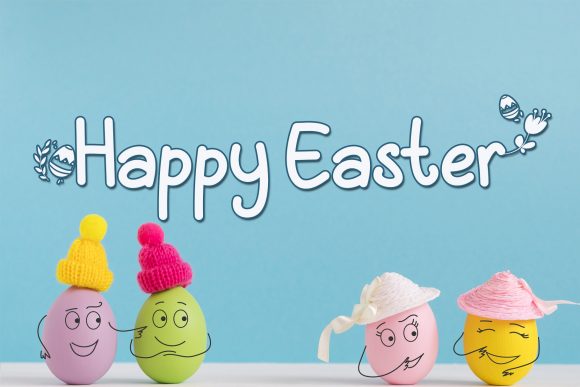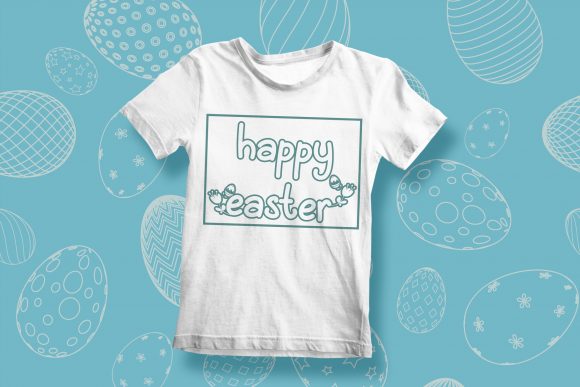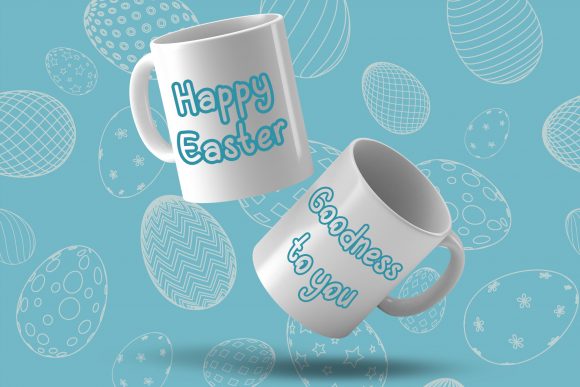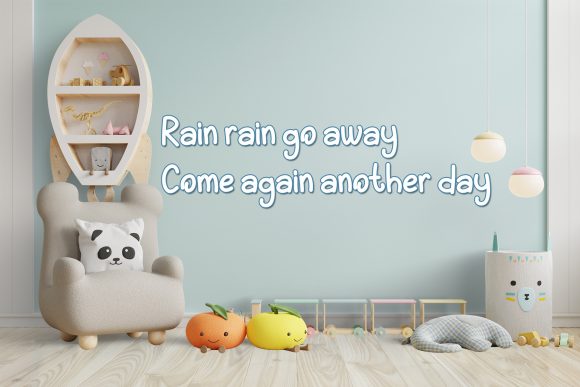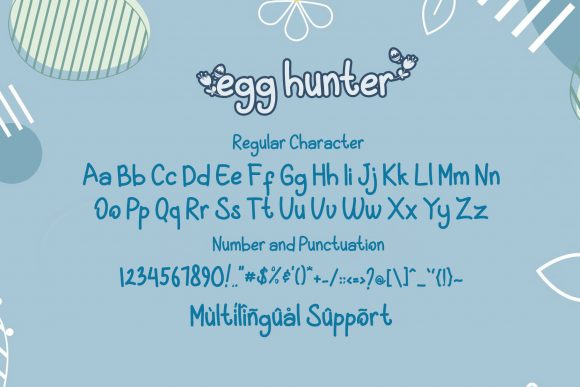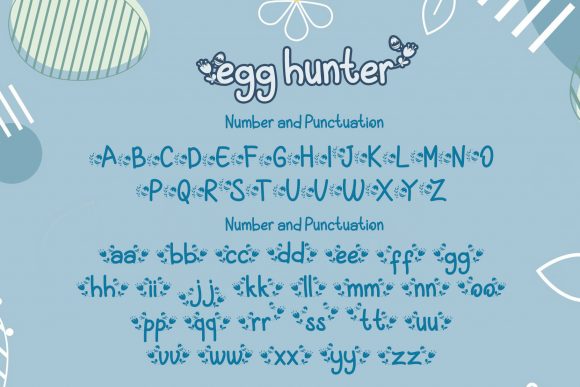
Egg Hunter Font: The Perfect Addition to Your Easter-Themed Designs
Are you a designer or crafter looking for a unique and cheerful font to add to your Easter-themed designs? Look no further than the Egg Hunter Font! This delightful display font is perfect for creating eye-catching Easter designs, cards, branding, stationery, blog designs, custom art, and more.
What Makes Egg Hunter Font So Special?
Egg Hunter Font is a one-of-a-kind font that features unique ornaments, making it stand out from other fonts. Its cheerful and playful design is sure to bring a smile to anyone’s face, making it perfect for Easter-themed designs. The font is also PUA encoded, which means you can easily access all of the glyphs and swashes, giving you endless creative possibilities.
Perfect for Easter-Themed Designs
Easter is a time for bright colors, playful designs, and whimsical themes. The Egg Hunter Font is specifically designed to capture the spirit of Easter, making it the perfect addition to your Easter-themed designs. Whether you’re creating Easter cards, decorations, or social media graphics, this font is sure to add a touch of fun and playfulness to your designs.
Use Egg Hunter Font for a Variety of Design Projects
The Egg Hunter Font is versatile and can be used for a wide range of design projects, including:
- Easter cards and invitations
- Stationery and journal design
- Blog design and blog posts
- Custom art and illustrations
- Quote and typography designs
- and many more!
Benefits of Using Egg Hunter Font
There are many benefits to using the Egg Hunter Font in your designs, including:
- Unique and playful design that’s sure to stand out
- Perfect for Easter-themed designs and projects
- Versatile and can be used for a wide range of design projects
Tips for Using Egg Hunter Font
Here are a few tips for using the Egg Hunter Font in your designs:
- Use the font’s unique ornaments to add visual interest and create eye-catching designs
- Pair the font with other playful fonts for a fun and whimsical design
- Use the font to create custom illustrations and artwork
The Egg Hunter Font is a unique and cheerful display font that’s perfect for Easter-themed designs and projects. With its playful design, PUA encoding, and versatility, it’s a must-have for designers and crafters looking to add a touch of fun and whimsy to their designs. Whether you’re creating Easter cards, branding, or custom art, the Egg Hunter Font is sure to be a hit!